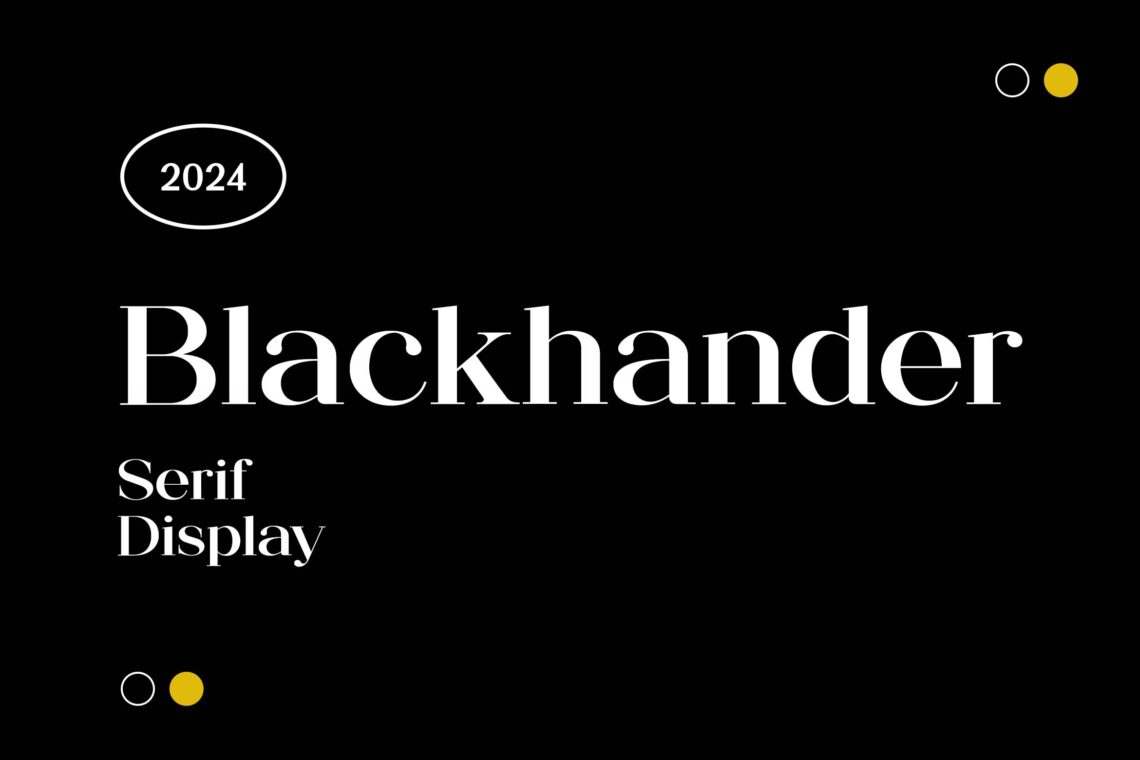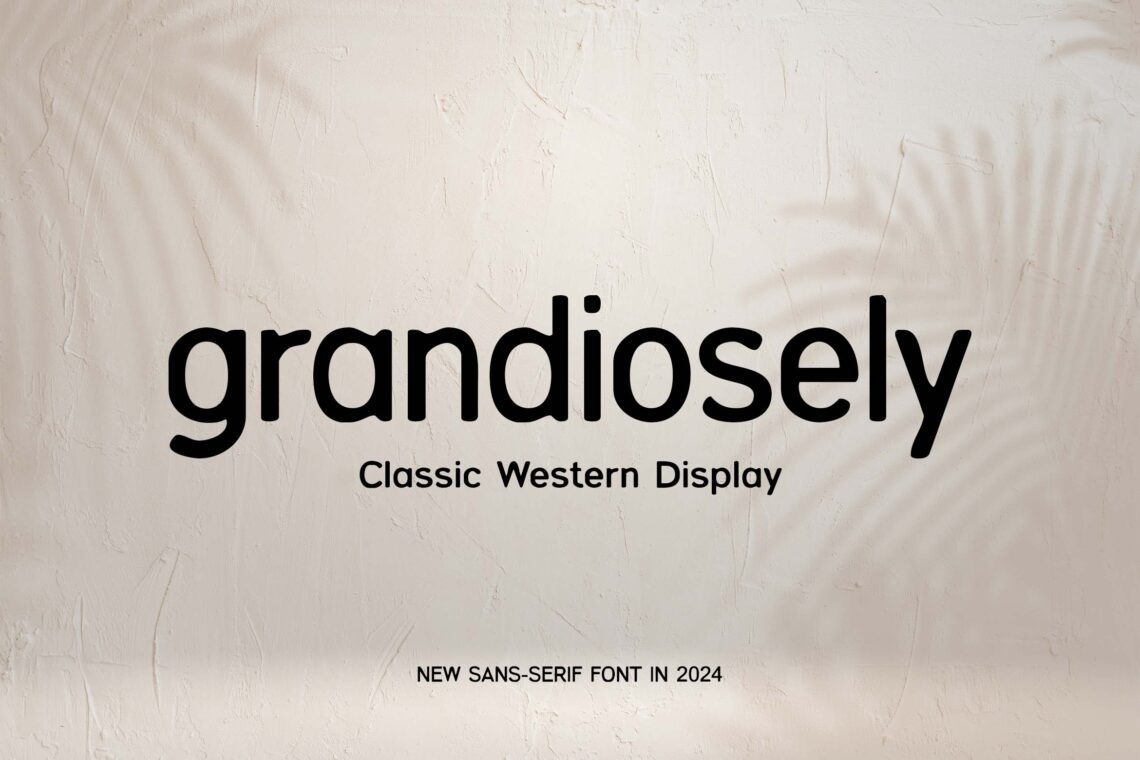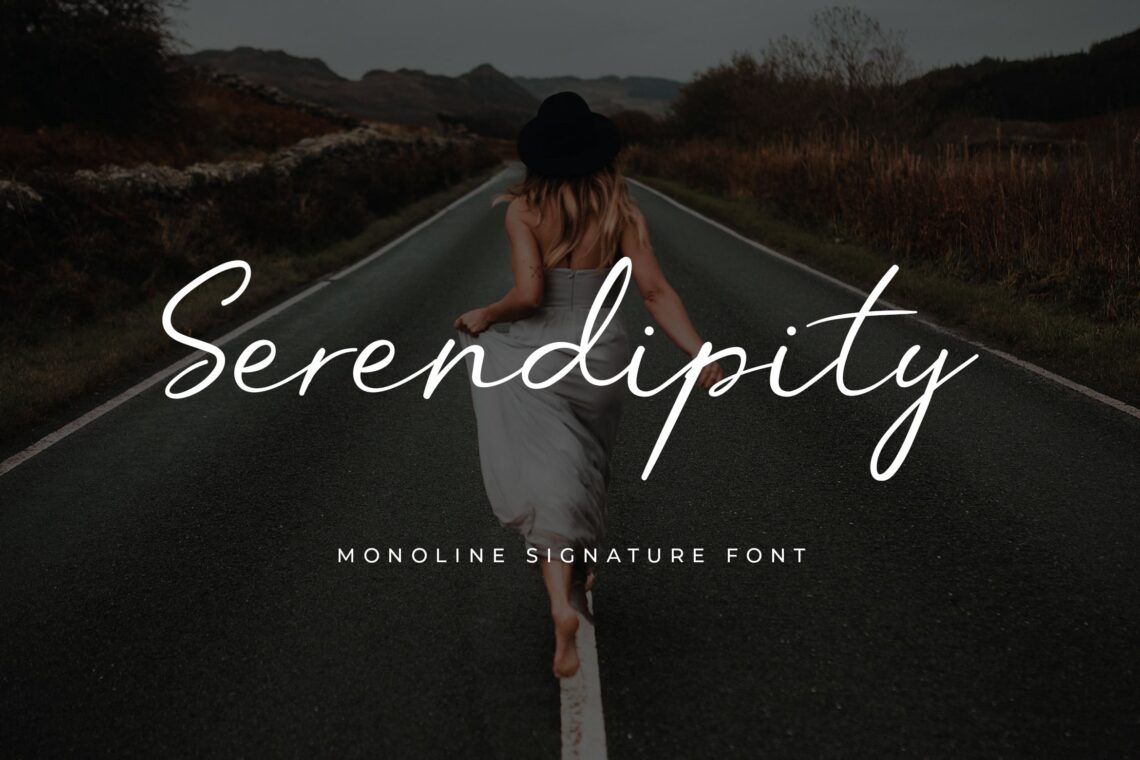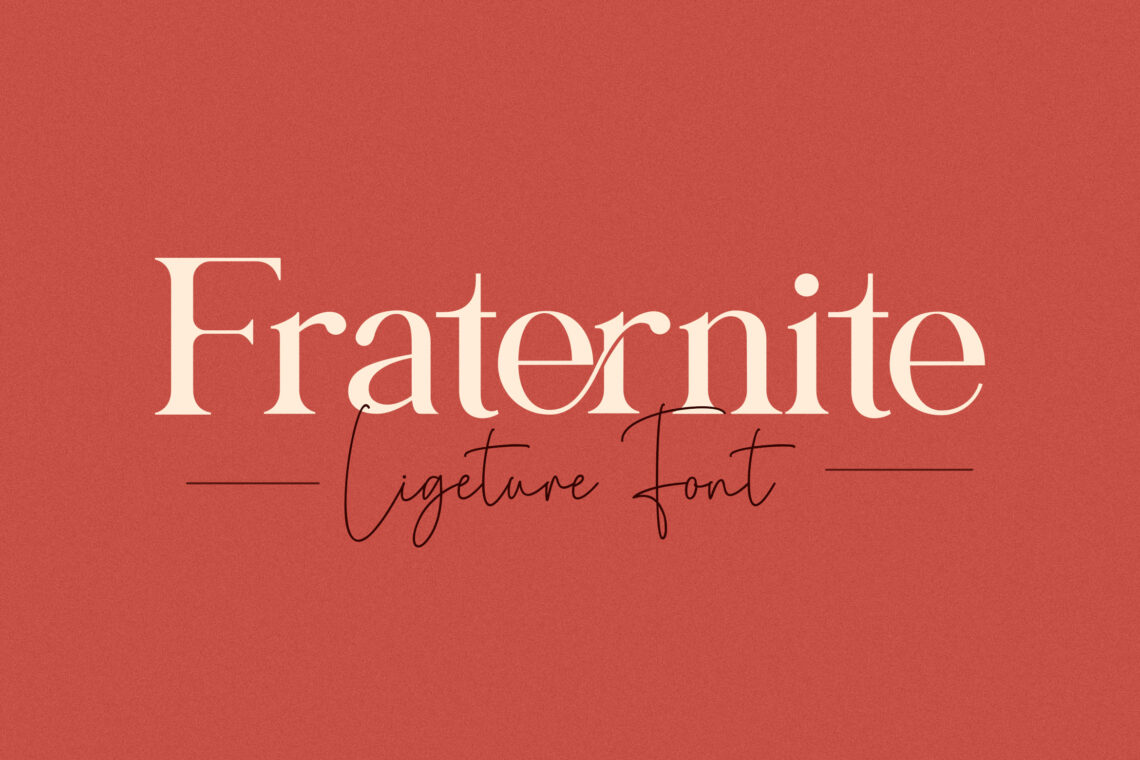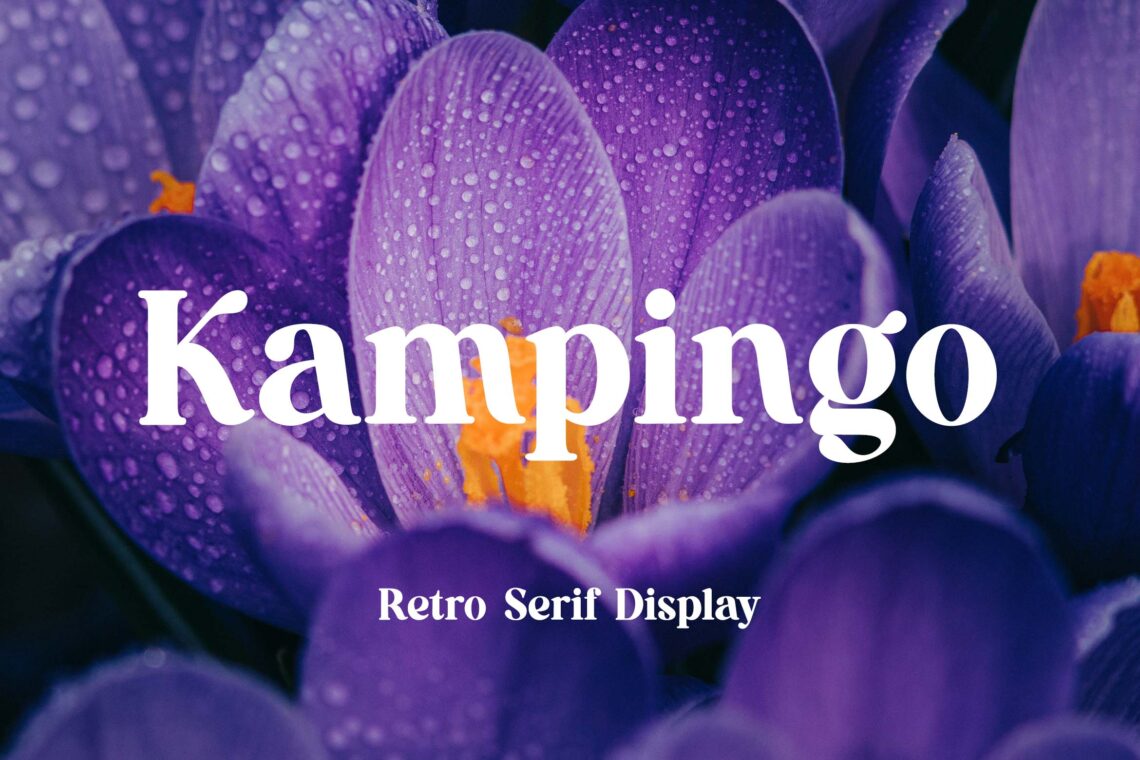
10 Best Font Logo Iphone in 2025
Font logo iPhone refers to the typography styles used for branding, applications, and creative projects on Apple devices. A well-chosen font can enhance a brand’s identity and ensure a professional and aesthetically pleasing look. With the advancement of design trends, selecting the right font logo for iPhone is crucial for standing out in the competitive digital space.
10 Best Font Logo iPhone in 2025
Finding the perfect font logo iPhone can elevate your branding and digital presence. Here are the top 10 font logo iPhone choices in 2025:
1. Grace Signature Bursh Signature Font
The Grace Signature Brush Signature Font is a beautifully crafted typeface that exudes elegance and sophistication. With its smooth, flowing brush strokes and natural handwritten feel, this font is perfect for branding, wedding invitations, logos, social media, and other creative projects. Designed to mimic the gracefulness of real handwriting, it adds a personal and luxurious touch to any design. Its versatility and stylish appearance make it an excellent choice for those looking to create a refined and timeless aesthetic.
2. Infusive Newest Futuristic Display Font
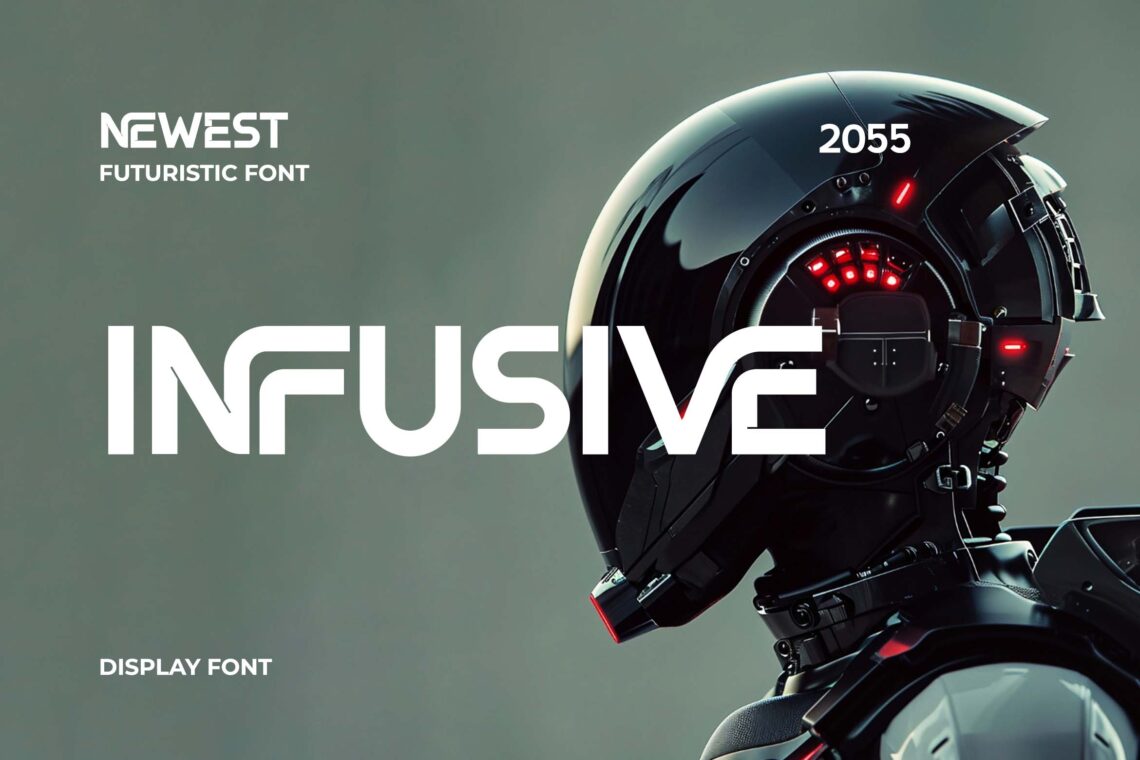
The Infusive Newest Futuristic Display Font is a cutting-edge typeface designed for modern and high-tech aesthetics. With sleek lines, bold geometry, and futuristic styling, this font is perfect for sci-fi themes, tech branding, gaming, and digital innovation projects. Its sharp, dynamic letterforms create a sense of motion and innovation, making it ideal for logos, posters, UI designs, and futuristic advertisements. Whether you’re working on a cyberpunk-inspired project or a next-gen tech brand, Infusive delivers a powerful and forward-thinking visual impact.
3. Goodlines Modern Sans Serif Family
The Goodlines Modern Sans Serif Family is a sleek and versatile typeface designed for contemporary branding, editorial design, and digital projects. With clean lines, balanced proportions, and a refined aesthetic, this font family offers excellent readability and a modern feel. Available in multiple weights, Goodlines adapts seamlessly to various design needs, from minimalist logos to sophisticated magazine layouts. Whether for web, print, or corporate identity, this sans-serif family delivers elegance and professionalism with a fresh, modern touch.
4. Nitrosamines Modern Serif Family Font
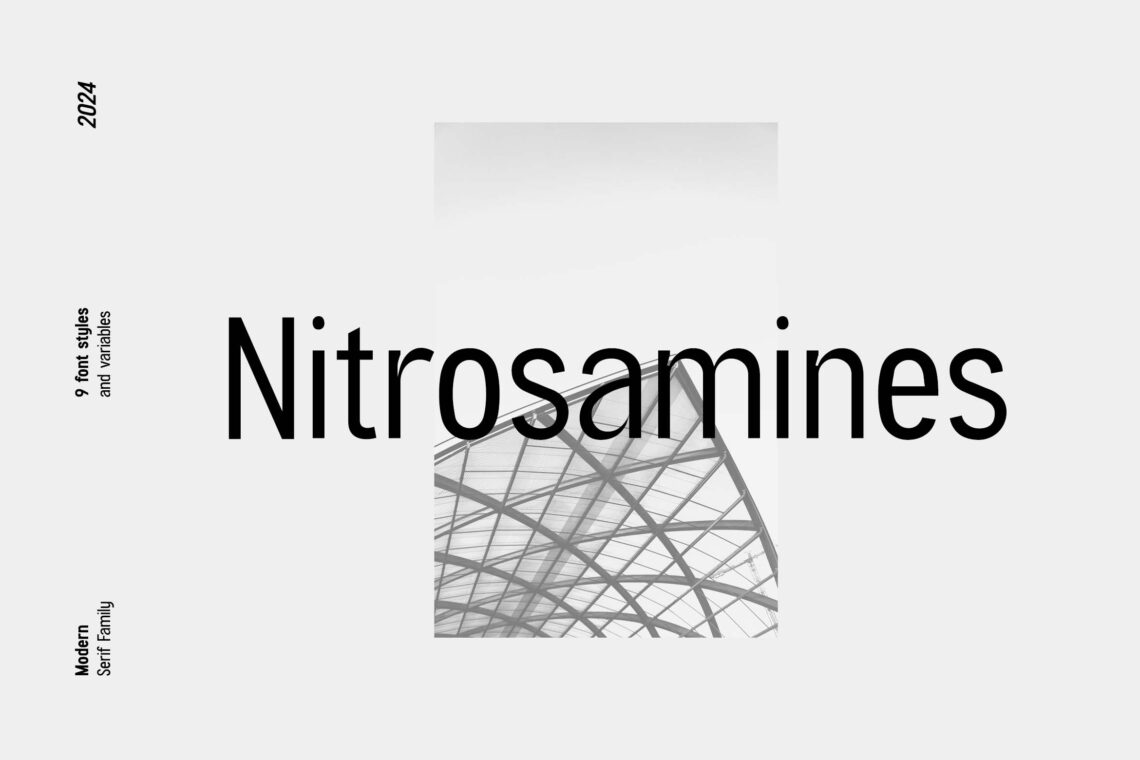
The Nitrosamines Modern Serif Family Font is a bold yet sophisticated typeface that blends contemporary elegance with timeless serif charm. Designed for versatility, this font family offers multiple weights, making it ideal for editorial design, branding, packaging, and luxury marketing. With sharp serifs, smooth curves, and refined letterforms, Nitrosamines creates a striking visual presence while maintaining excellent readability. Whether you’re designing high-end logos, stylish headlines, or premium print materials, this serif family adds a touch of modern sophistication to any project.
5. Imposture Grotesk Modern Geometric Font Family
The Imposture Grotesk Modern Geometric Font Family is a sleek and versatile typeface that combines the clean precision of geometric design with a contemporary grotesk aesthetic. Featuring well-balanced letterforms, sharp edges, and a minimalist structure, this font family is perfect for branding, editorial layouts, UI/UX design, and modern advertising. With multiple weights and styles, Imposture Grotesk adapts seamlessly to both digital and print applications, offering a bold yet refined visual impact. Whether used for headlines, body text, or logo design, this font family delivers a professional and modern touch.
6. Howlings Grotesk Modern Geometric Font
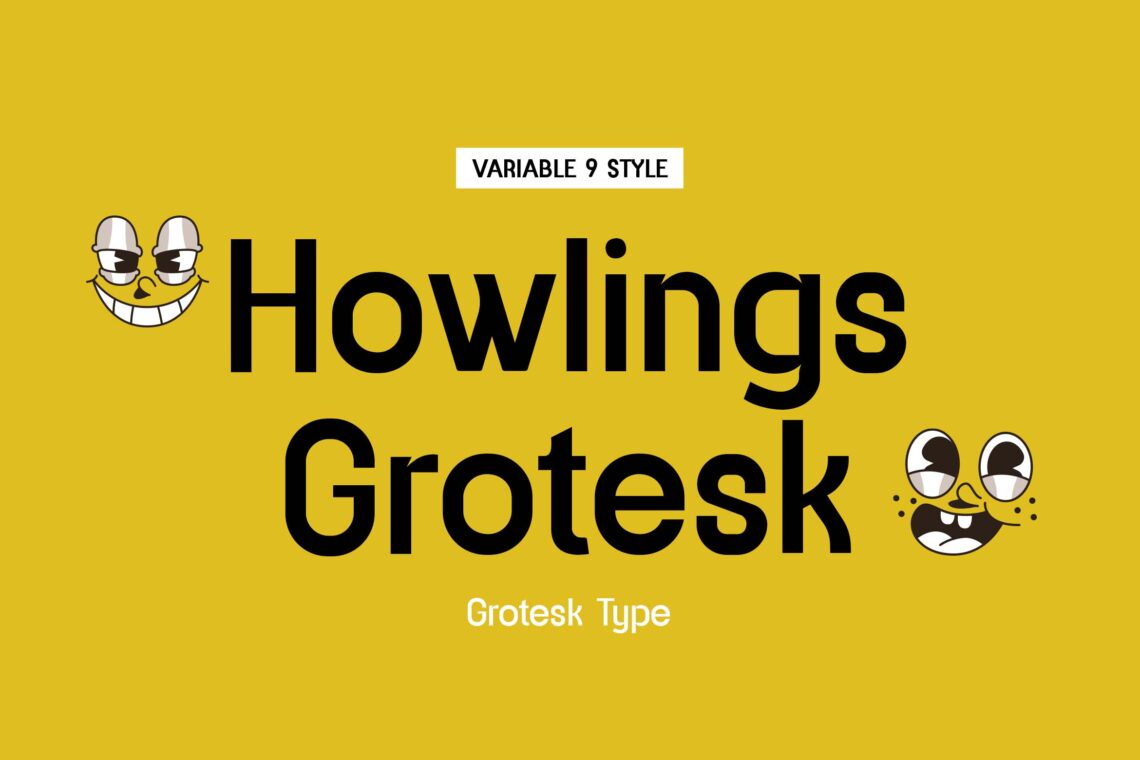
The Howlings Grotesk Modern Geometric Font is a bold and contemporary typeface that merges clean geometric precision with a classic grotesk aesthetic. Designed for versatility, it features balanced proportions, sharp edges, and a minimalist yet expressive character. Perfect for branding, editorial design, web interfaces, and advertising, Howlings Grotesk delivers a modern and professional look with excellent readability. Whether you’re crafting sleek headlines, innovative logos, or stylish marketing materials, this font offers a striking and timeless visual appeal.
7. Pachinko Modern Sans Serif Family Font.
The Pachinko Modern Sans Serif Family Font is a sleek and stylish typeface that balances contemporary minimalism with a touch of personality. Featuring clean lines, smooth curves, and well-spaced letterforms, this font family is ideal for branding, web design, editorial layouts, and corporate materials. With multiple weights and styles, Pachinko adapts effortlessly to various design needs, from bold headlines to elegant body text. Its modern yet approachable aesthetic makes it a perfect choice for designers seeking a refined, versatile, and highly readable sans-serif font.
8. Solenoidal Classic Elegant Serif Font
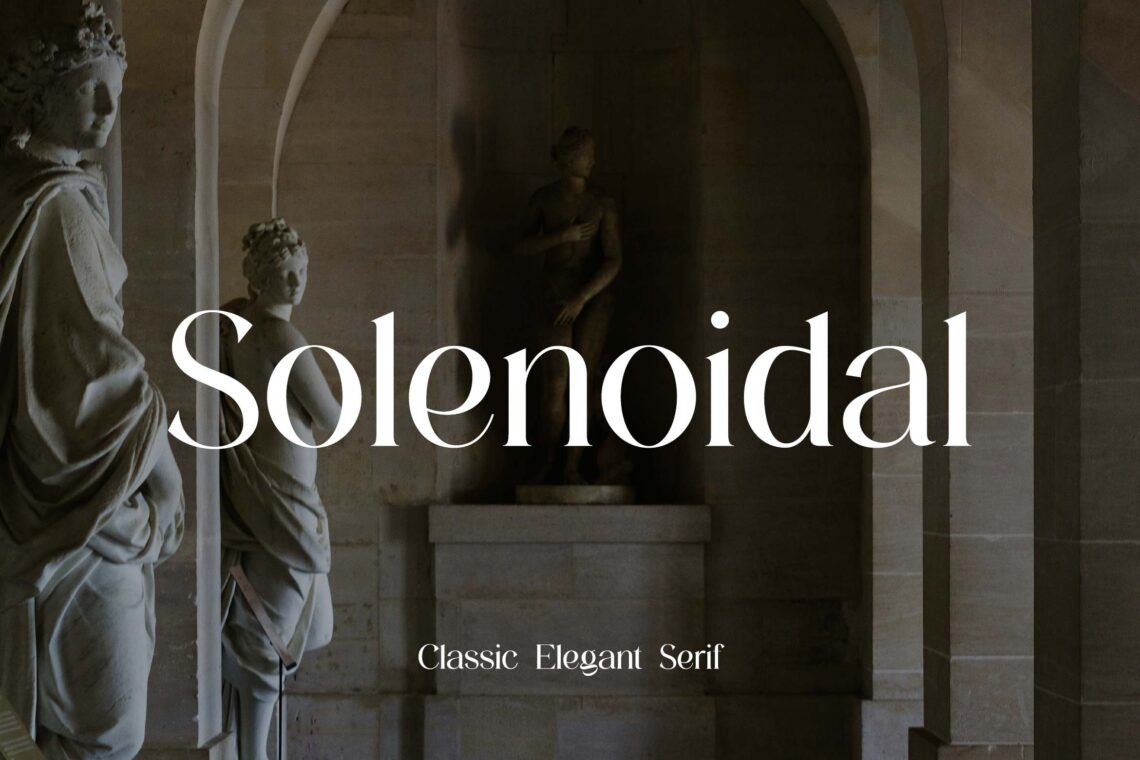
The Solenoidal Classic Elegant Serif Font is a refined typeface that embodies sophistication and timeless beauty. With its graceful serifs, well-balanced letterforms, and subtle contrast, this font exudes a sense of luxury and professionalism. Perfect for high-end branding, editorial layouts, wedding invitations, and elegant packaging, Solenoidal brings a touch of classic charm while maintaining a modern appeal. Its impeccable readability and versatile style make it an excellent choice for designers seeking a font that seamlessly blends tradition with contemporary elegance.
Conclusion
Choosing the right font logo iPhone is essential for creating a visually appealing and professional brand identity. The 10 best font logo iPhone options in 2025 offer a mix of modern, classic, and versatile styles, ensuring that businesses and designers can find the perfect match for their projects. Whether for an app, website, or logo, these fonts provide a strong foundation for effective branding